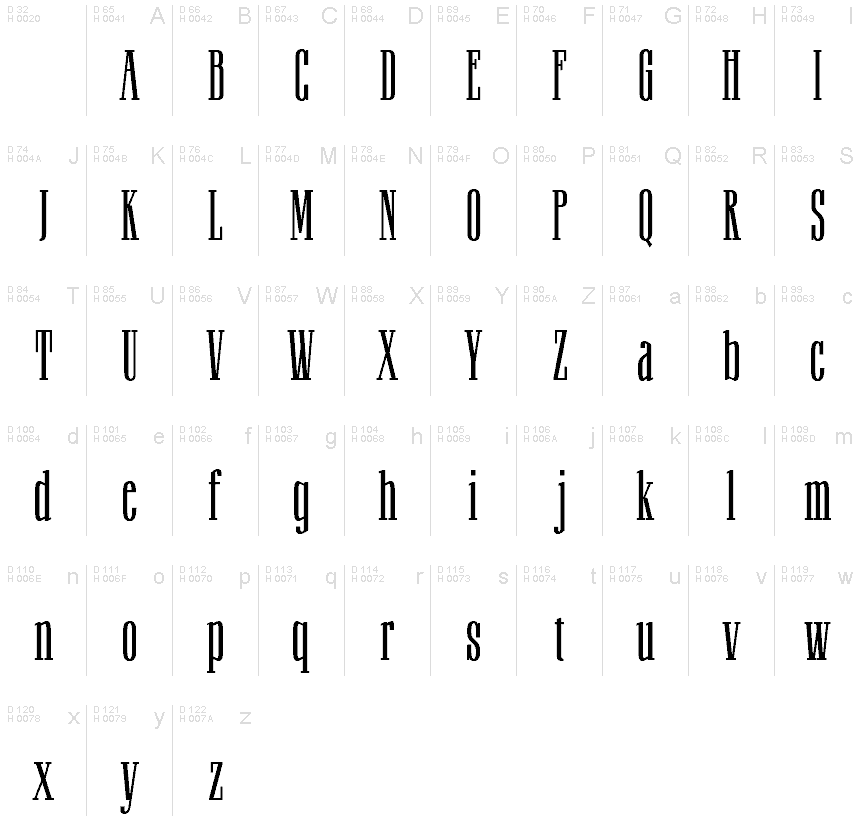
Railine Demo Regular
Railine font by Craft Supply Co is a condensed serif font built for a clean, professional typeface. The letters have more space between them while serifs remain distinct and beautiful. With thick characters resembling Bodoni and strokes similar to Didot, all combined create the perfect light vintage look.
These features allow multiple use cases in editorial design, logo creation, branding projects such as corporate identity, wedding invitation cards, posters design, advertising headers and subheadings. Freely download this font that matches modern usability with a timeless style.